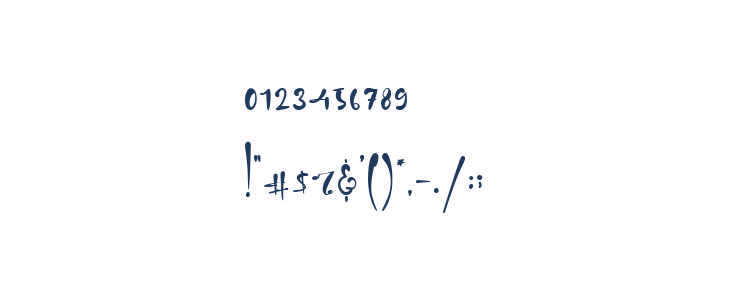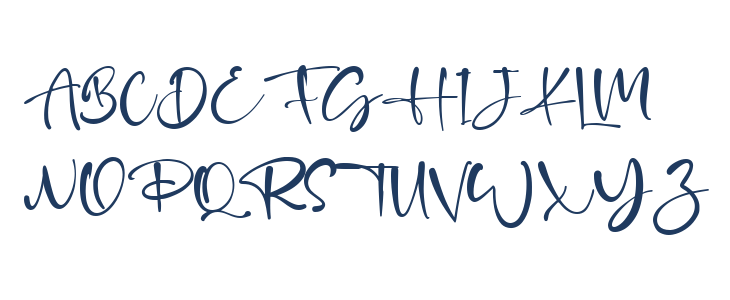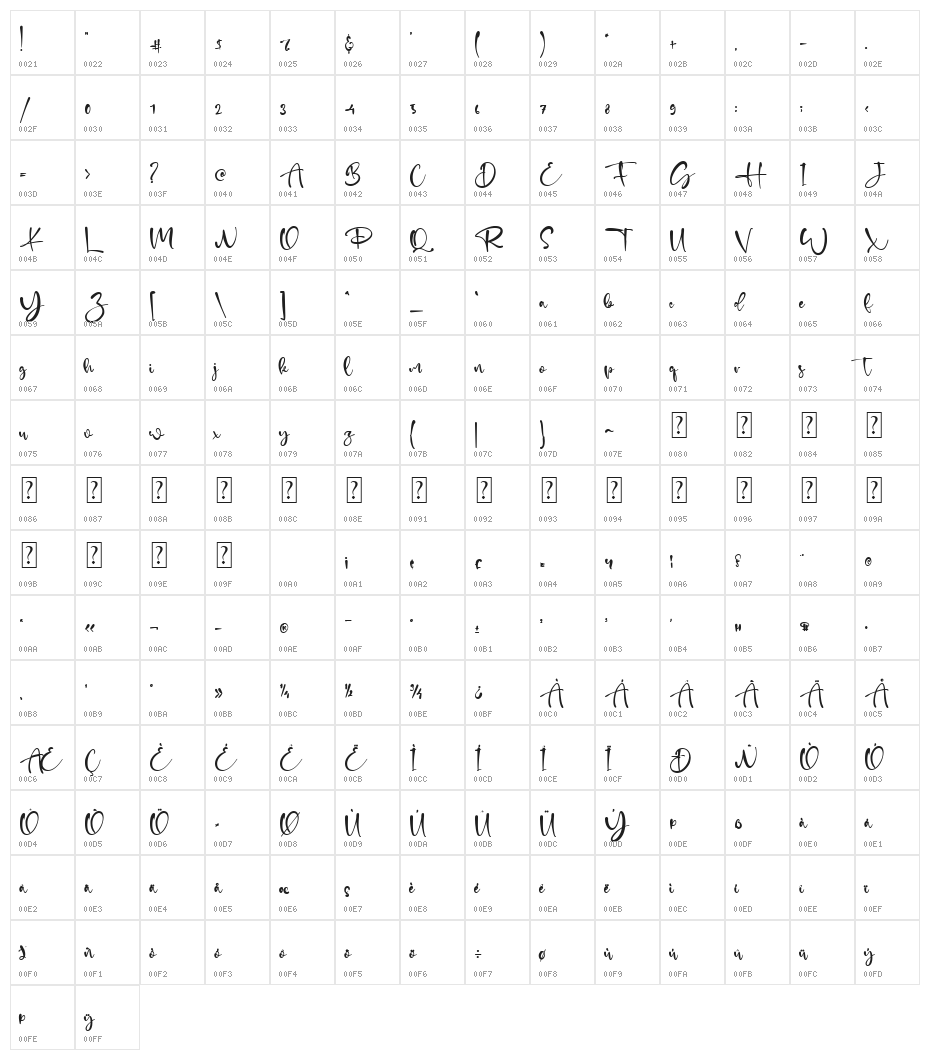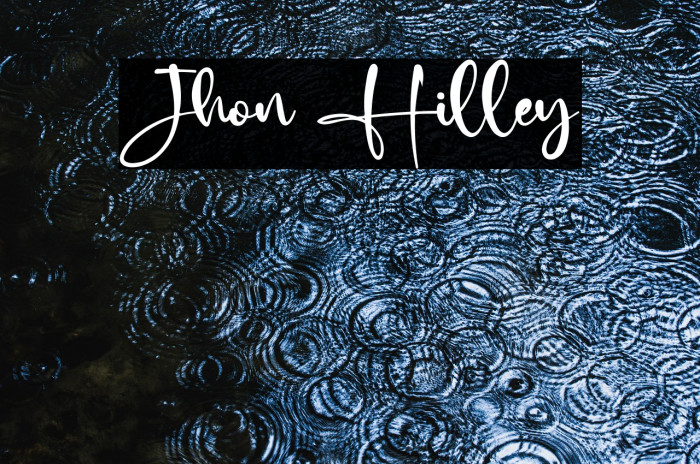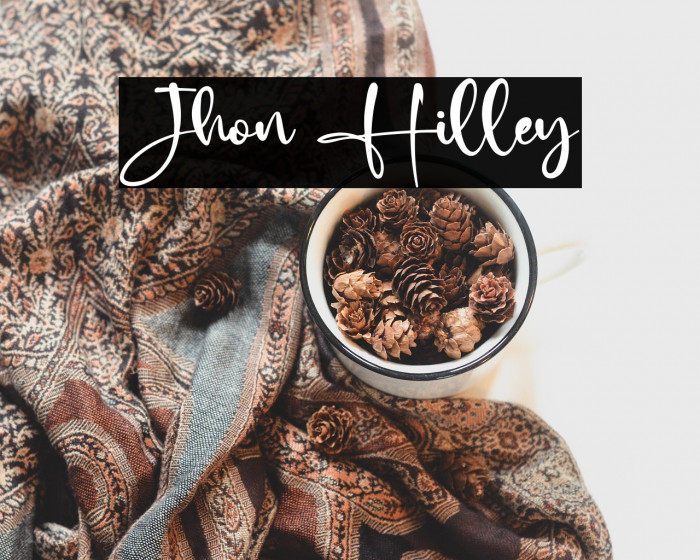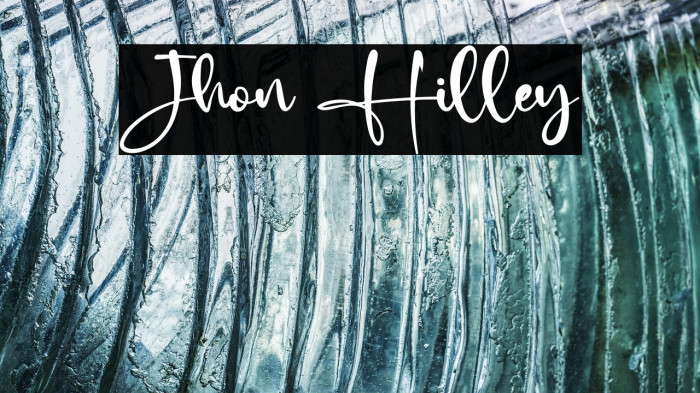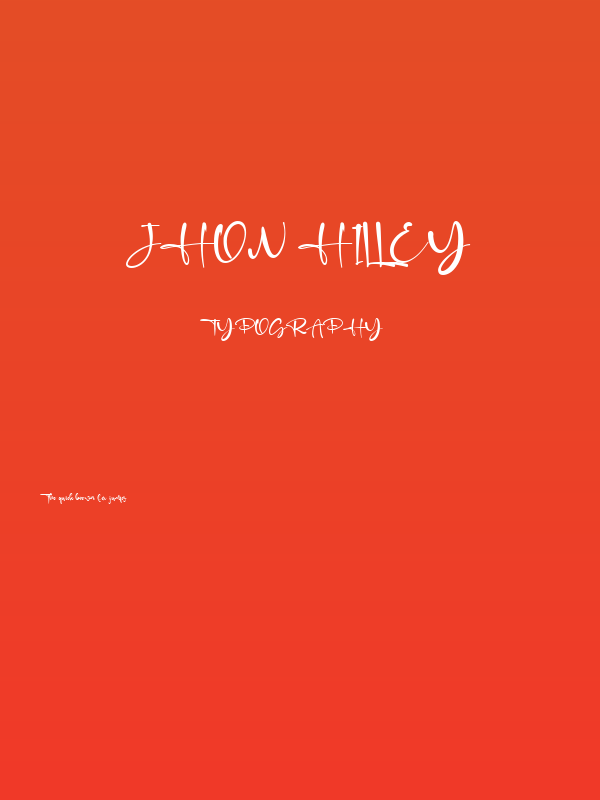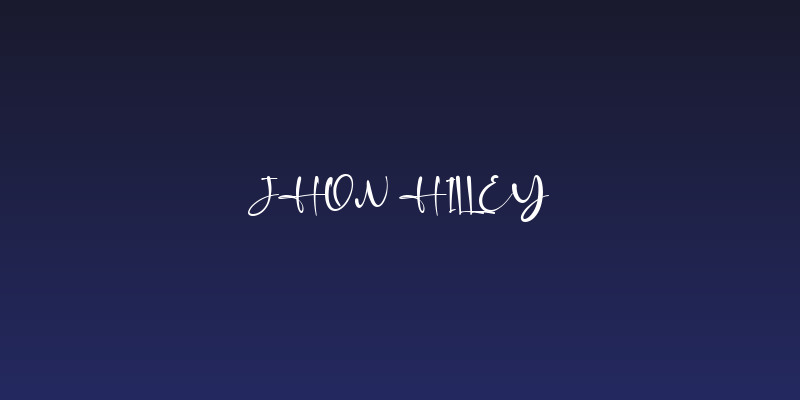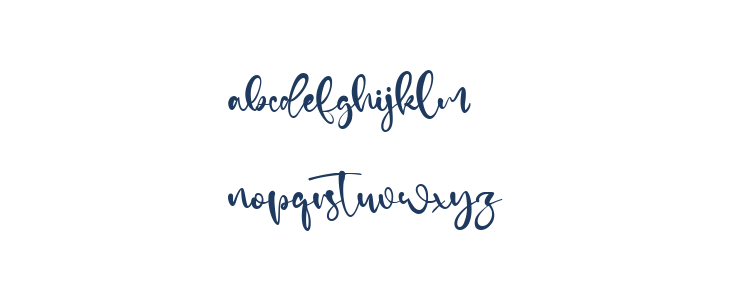
Jhon Hilley Font
Jhon Hilley Description
A playful, handwritten script font with fluid, connected strokes and varying line thickness, giving it a casual and artistic feel. The uppercase letters are large and expressive, while the lowercase letters are rounded and slightly bouncy. Numerals and punctuation maintain the same whimsical style.
| Overall Style | Decorative, Playful, Artistic |
| Use Case | Logos, Headlines, Invitations, Greeting cards |
| Proposed Projects | Greeting cards, invitations, branding, social media graphics, personal projects. |